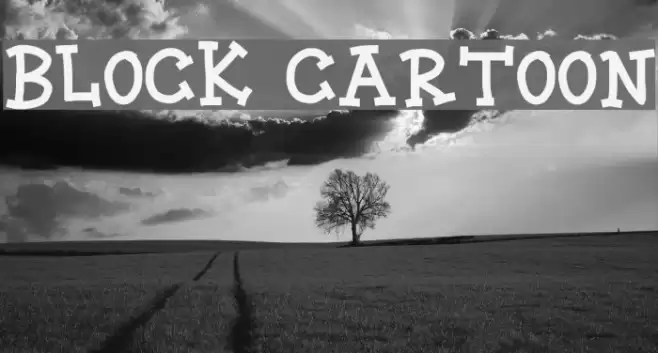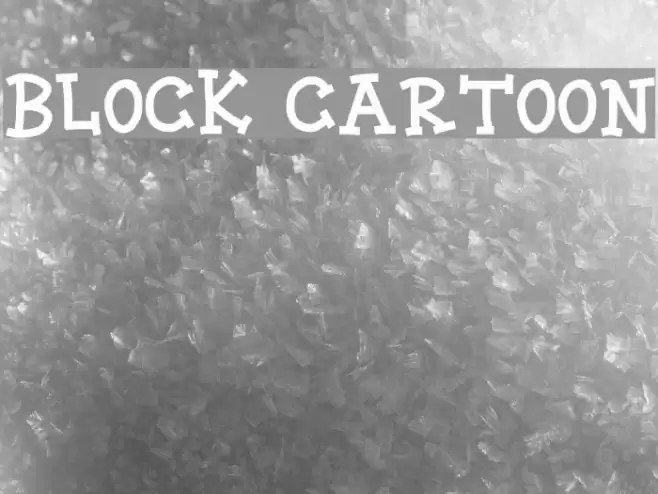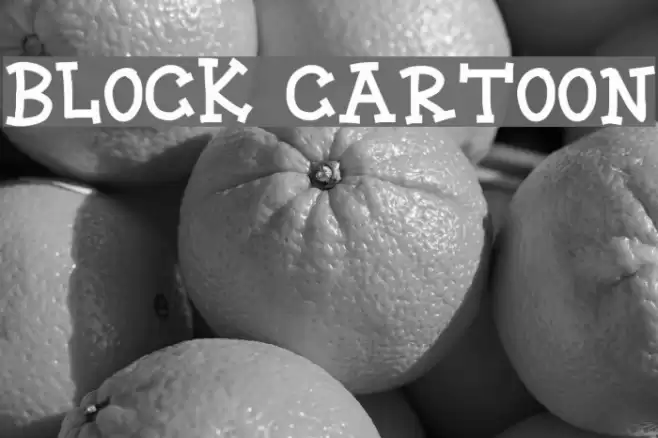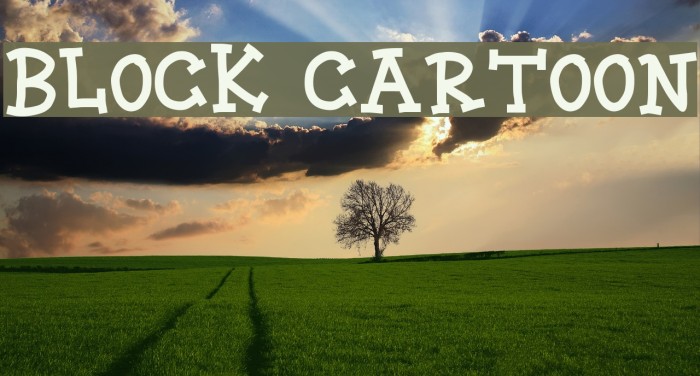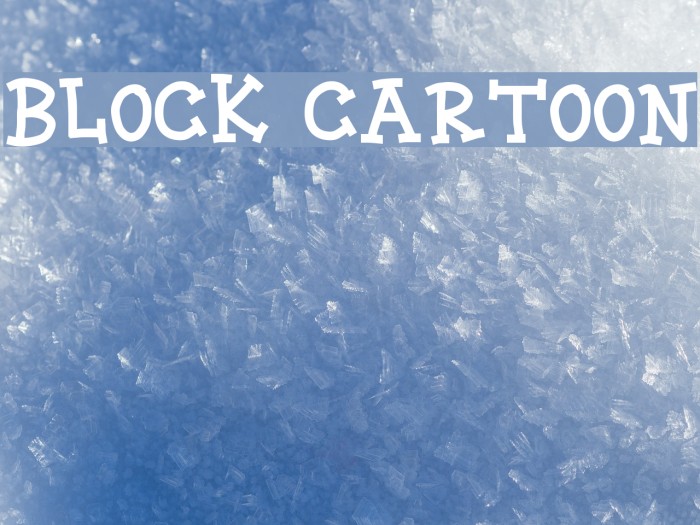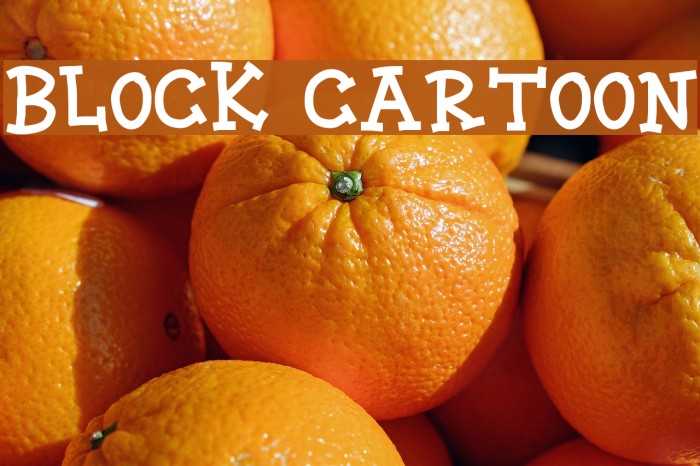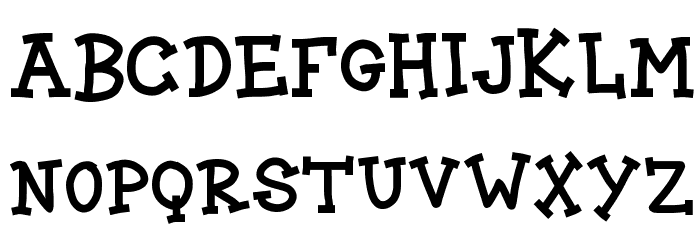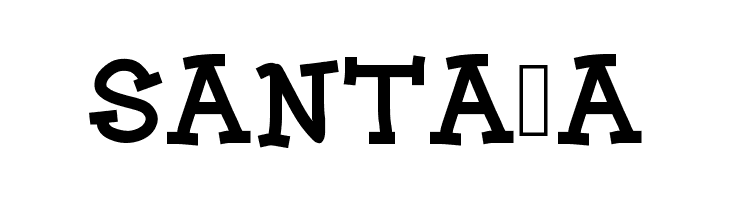
BLOCK CARTOON Font
BLOCK CARTOON Description
This playful and bold font features a cartoonish style with exaggerated serifs and a slightly uneven baseline, giving it a whimsical and fun appearance. The uppercase letters are prominent and eye-catching, while the lowercase letters maintain the same playful aesthetic. The numbers and special characters are designed to match the overall style, making this font ideal for projects that require a lively and engaging look. The strokes are consistent in weight, providing a balanced and cohesive appearance across all characters.
A bold, playful font with a cartoonish style and exaggerated serifs from Cartoon fonts.
- Proposed Projects: Ideal for children's books, comic strips, playful branding, and party invitations.
- Overall Style: Cartoonish, Playful